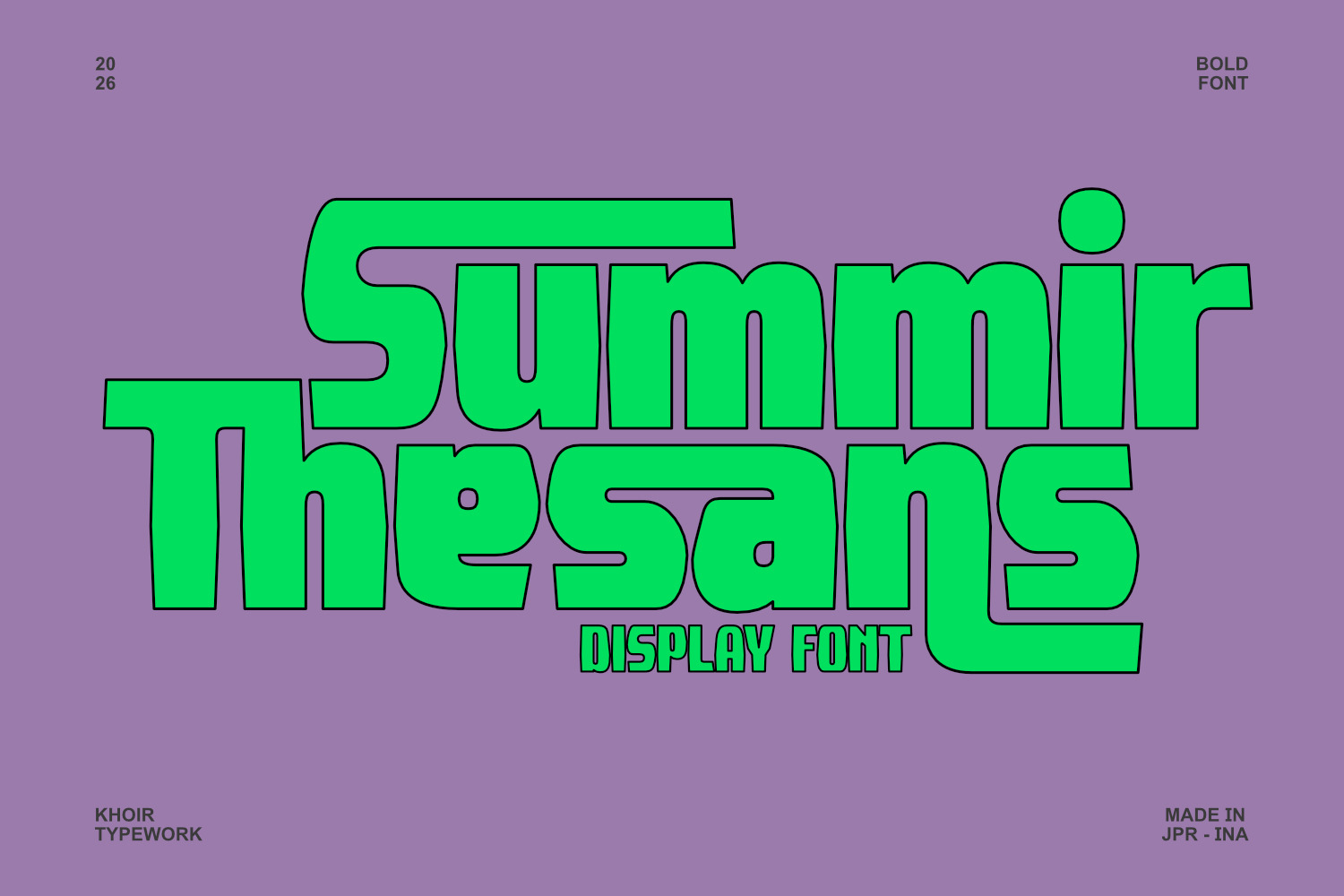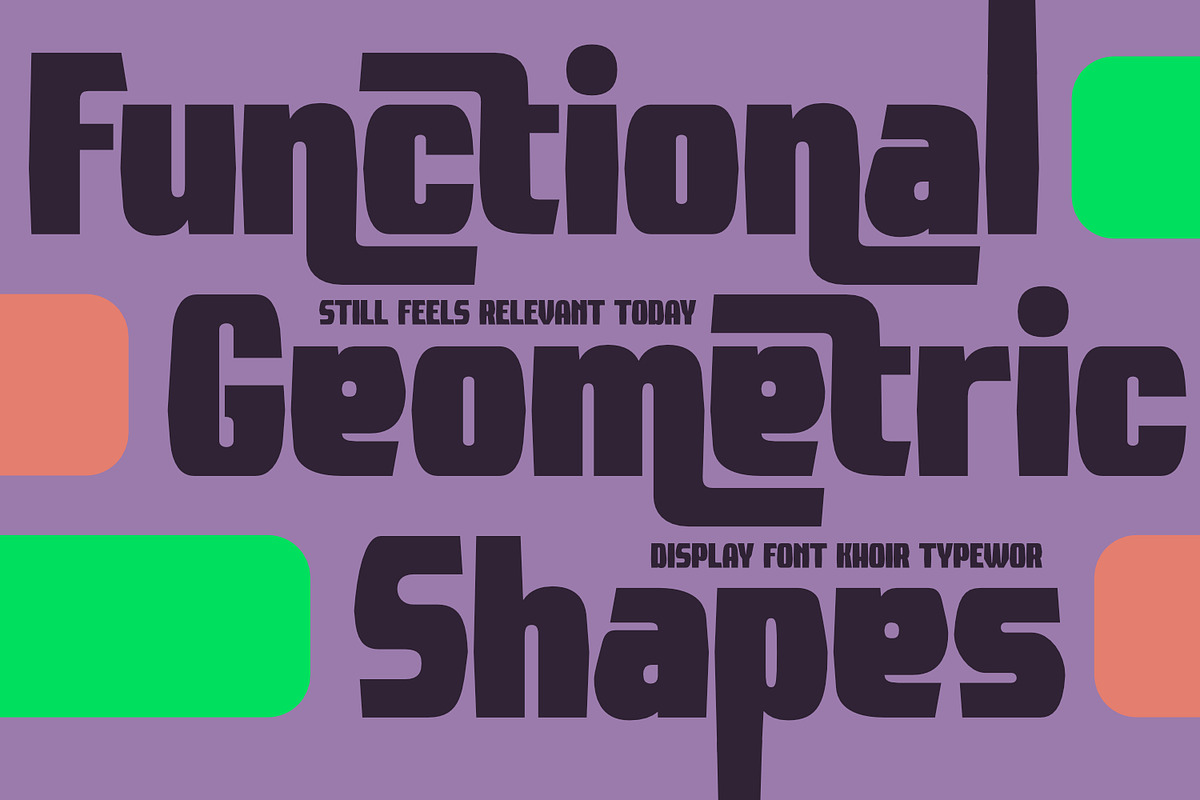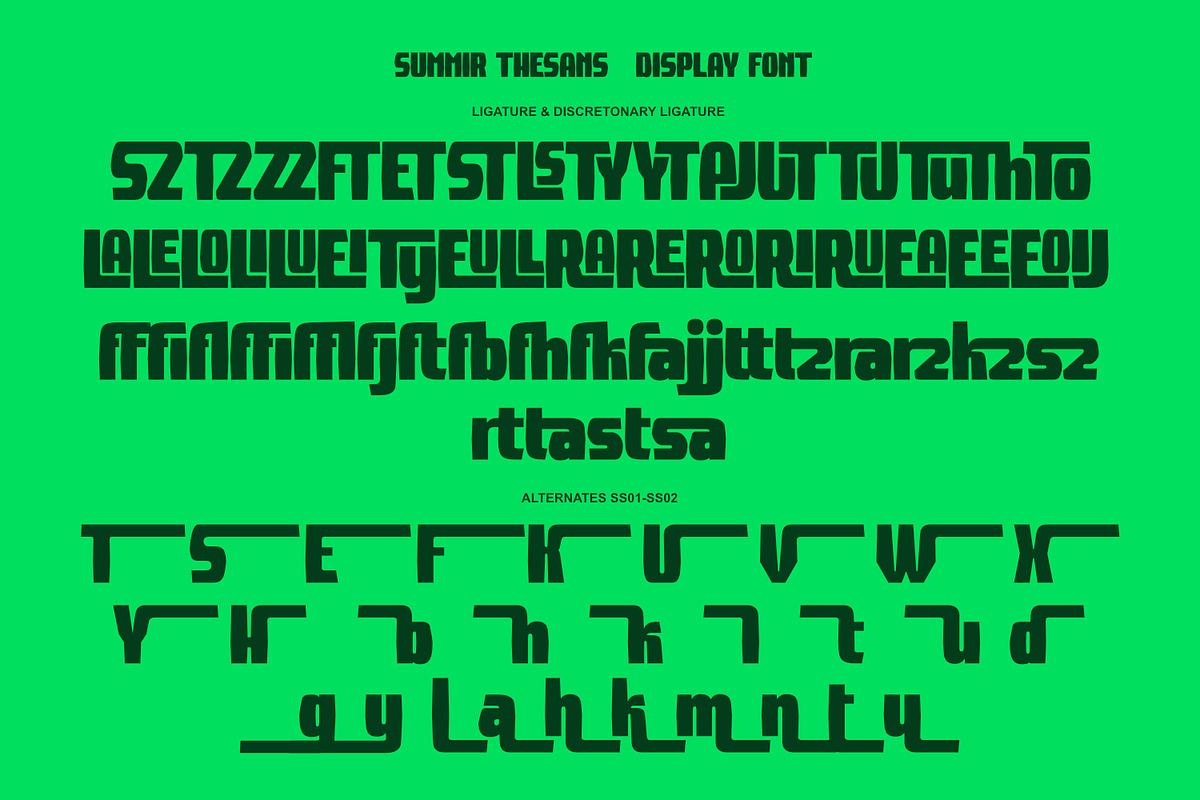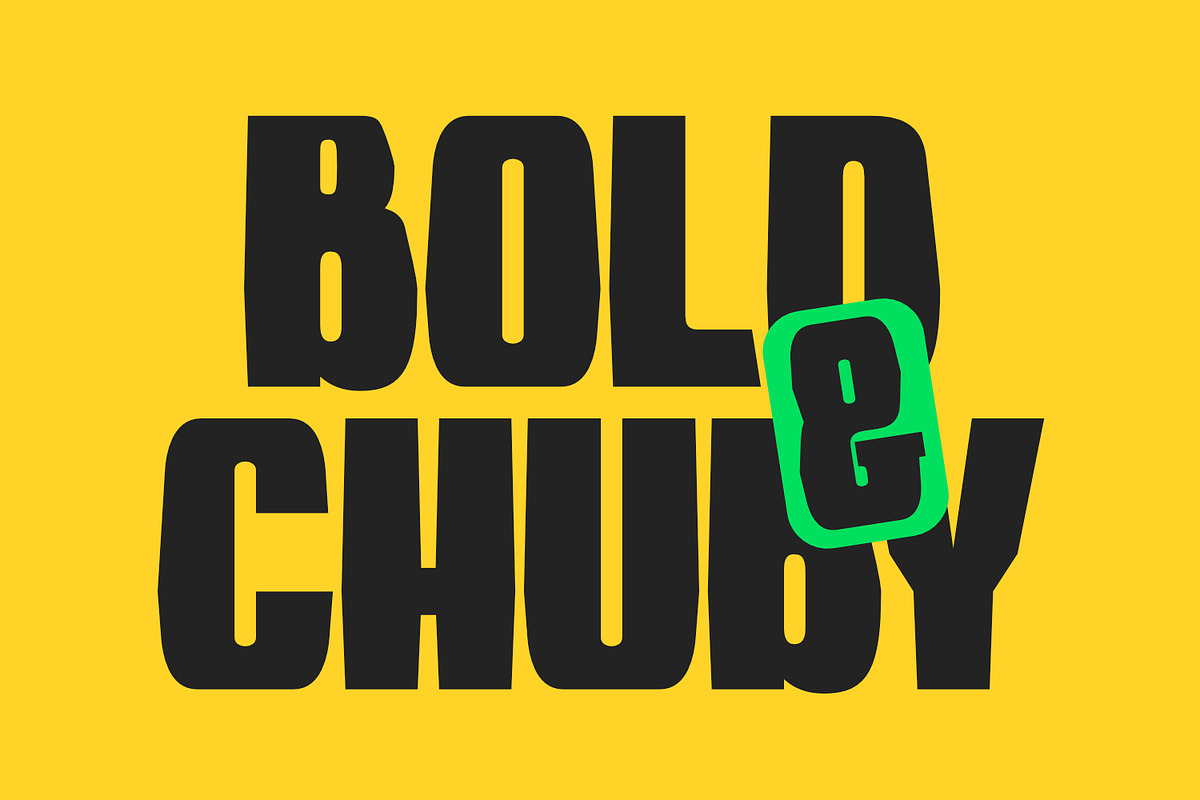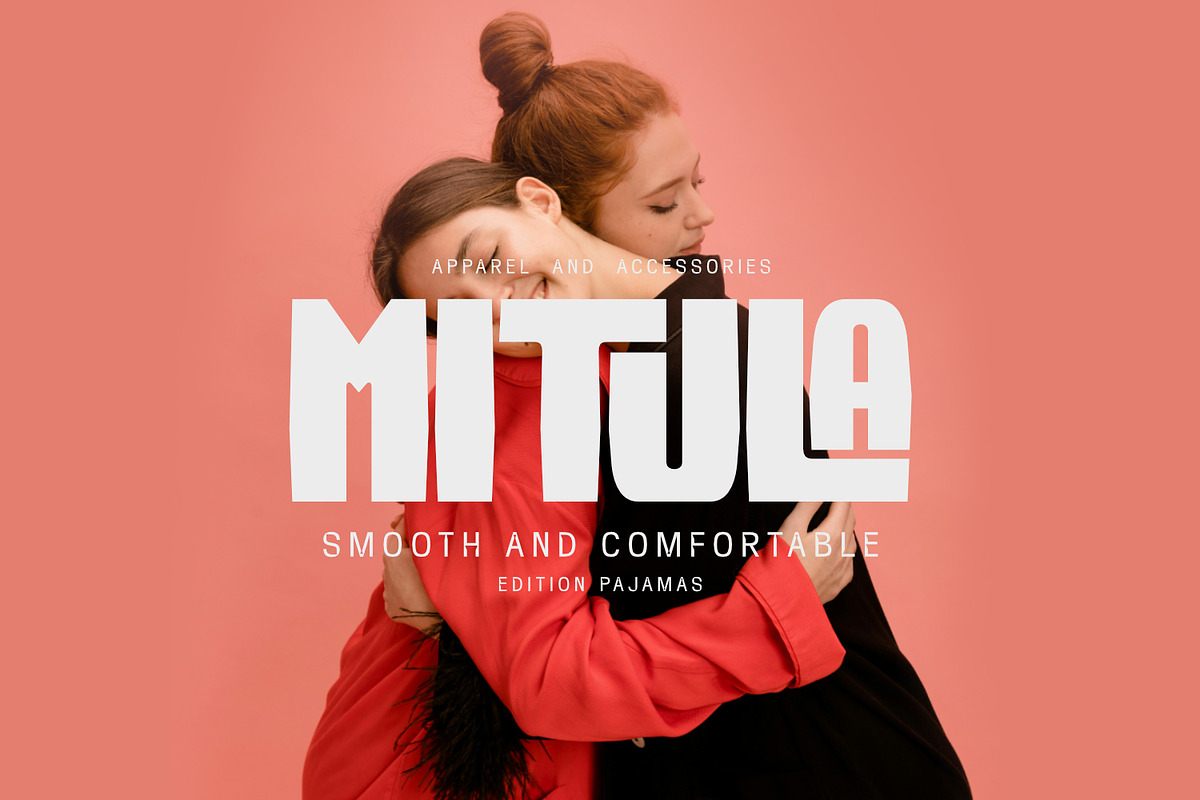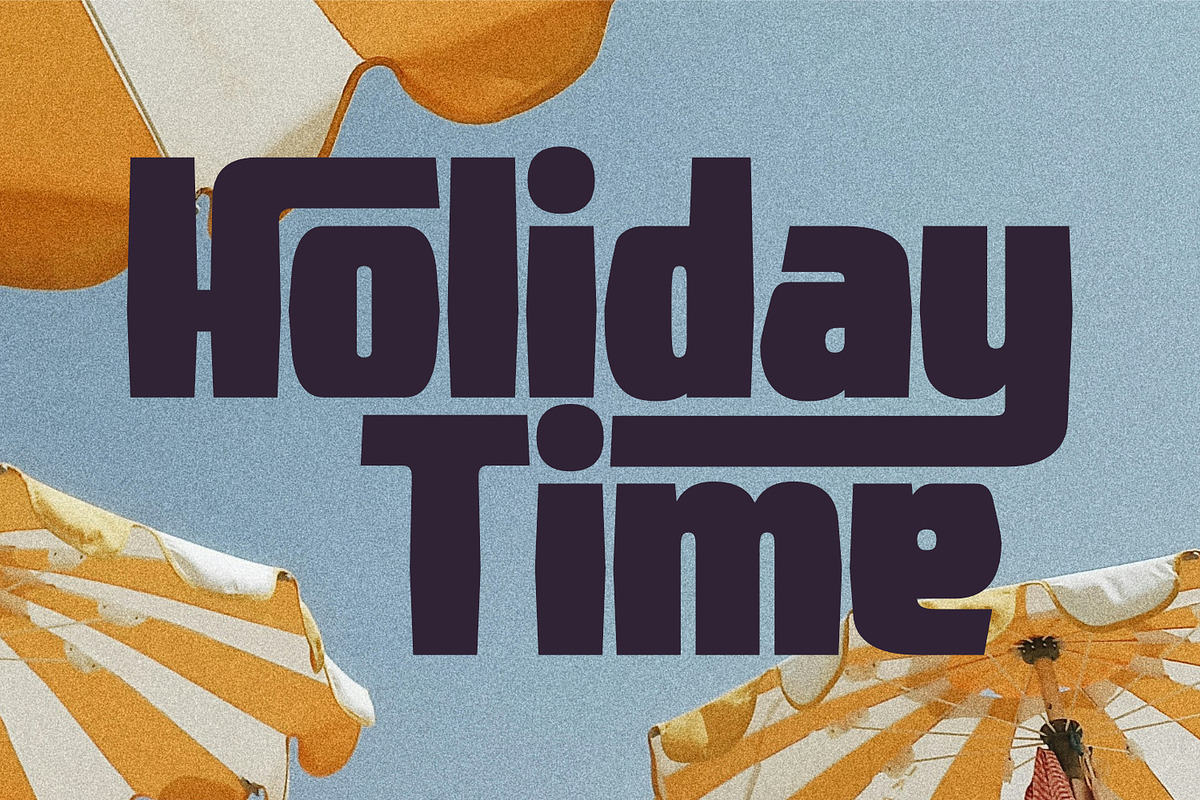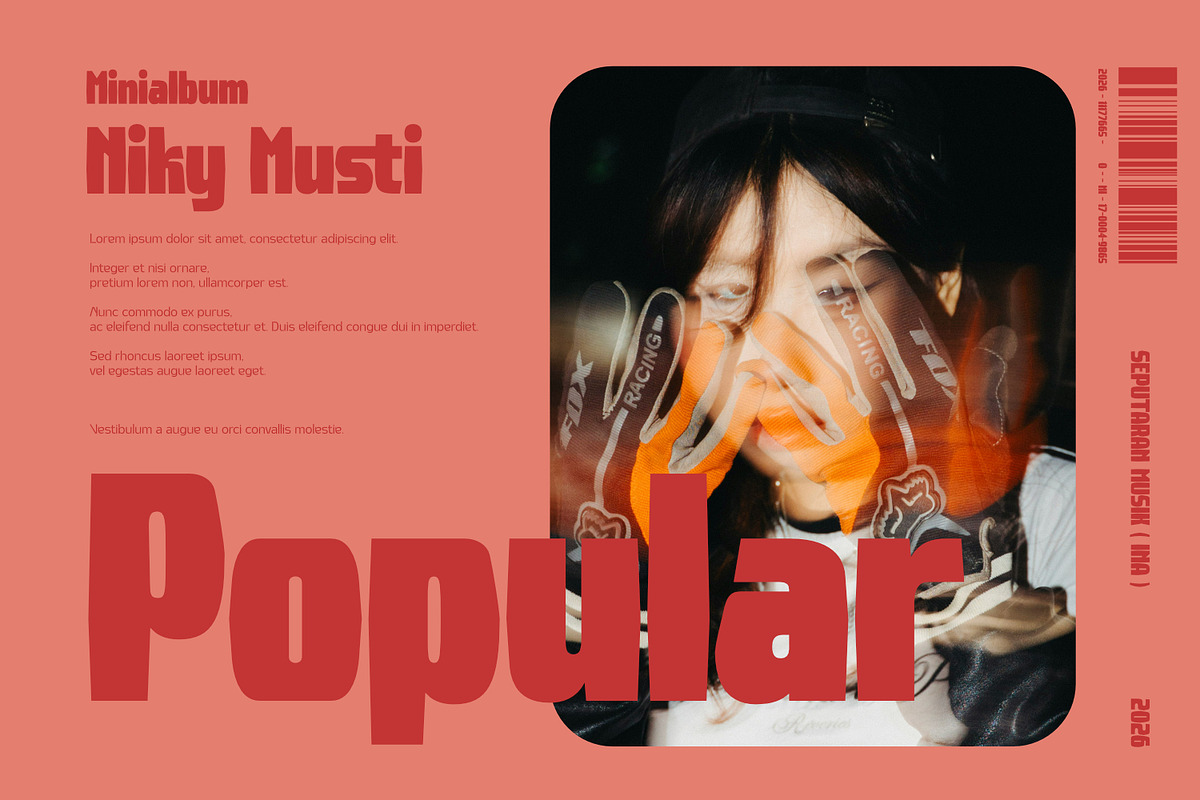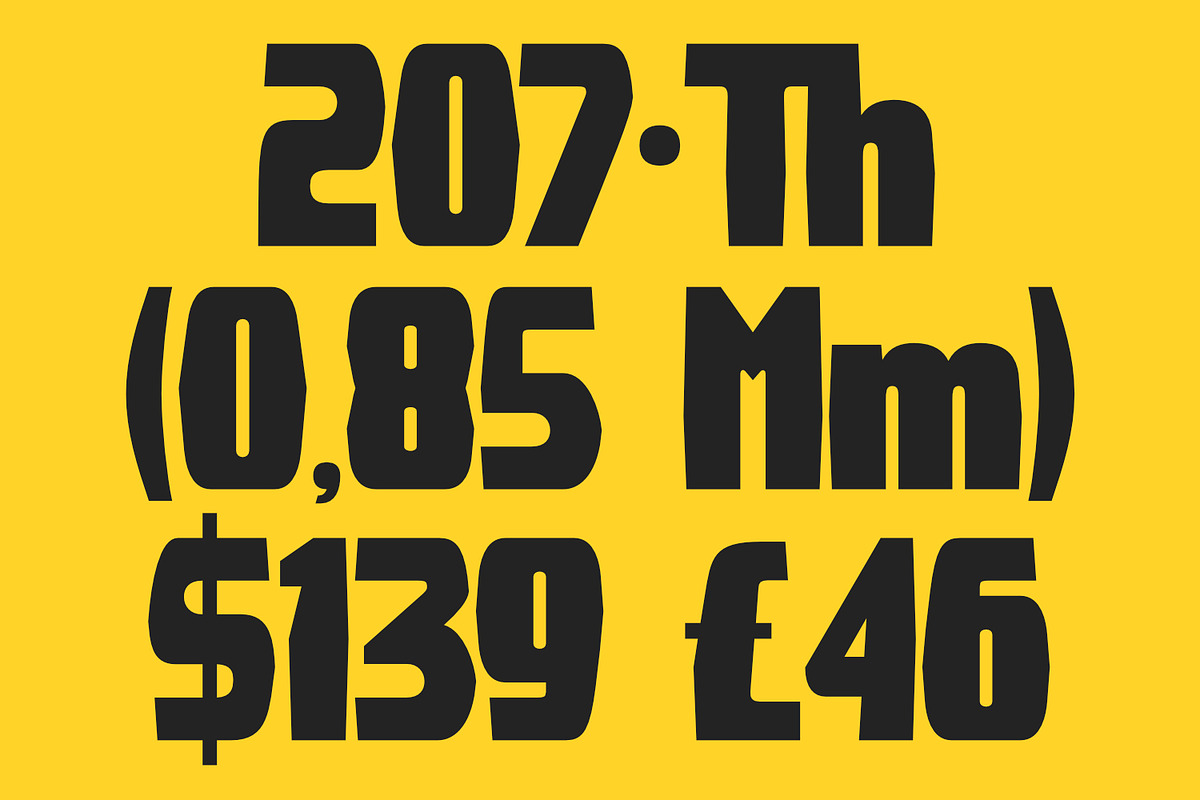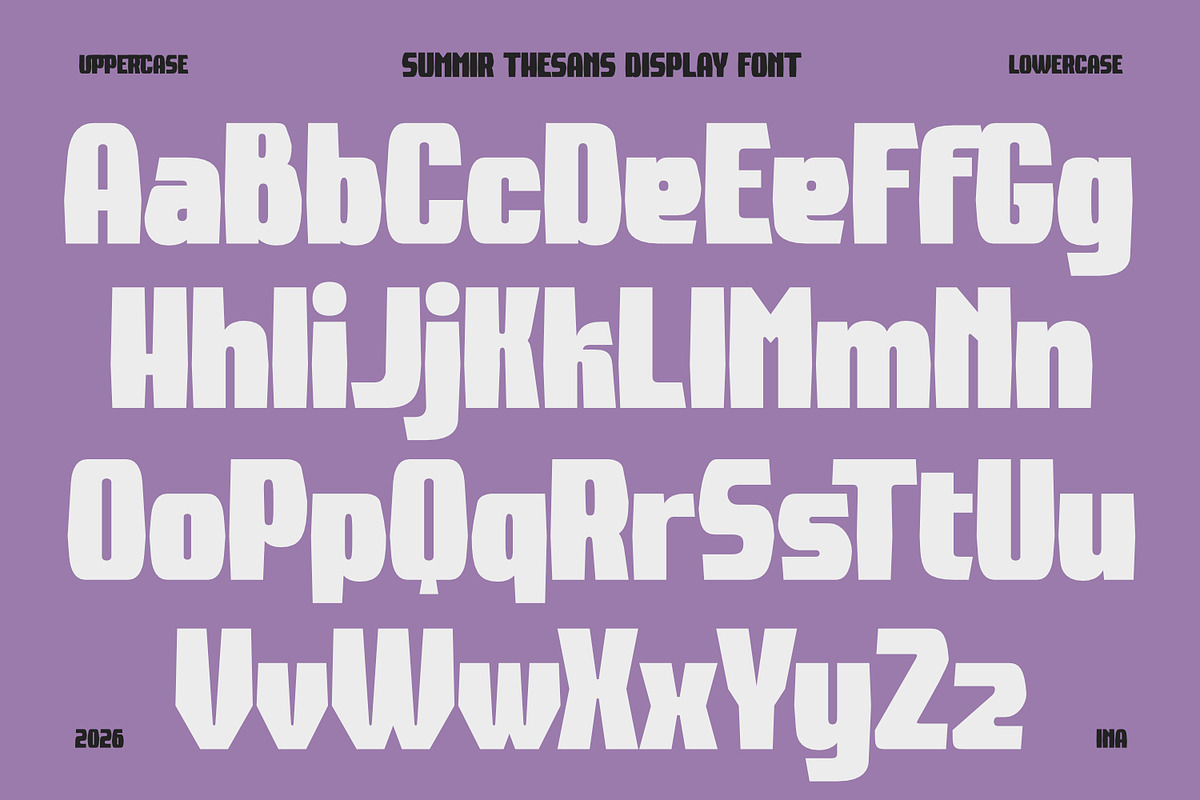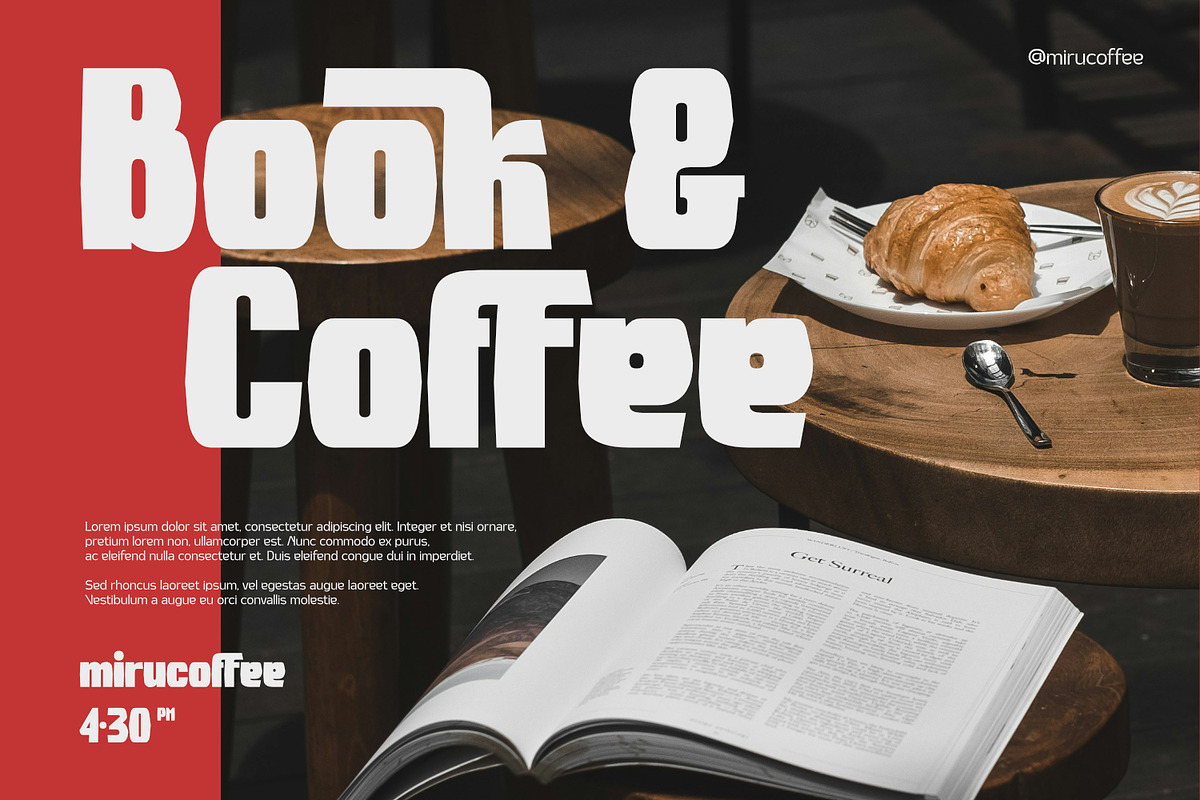
Summir Thesans - Display Font
Introducing Summir Thesans, This cheerful and playful font combines consistent strokes with bold, angular shapes to create an eye-catching and striking look for logo designs and branding projects. Its numerous alternates and ligatures provide creative flexibility for unique titles.